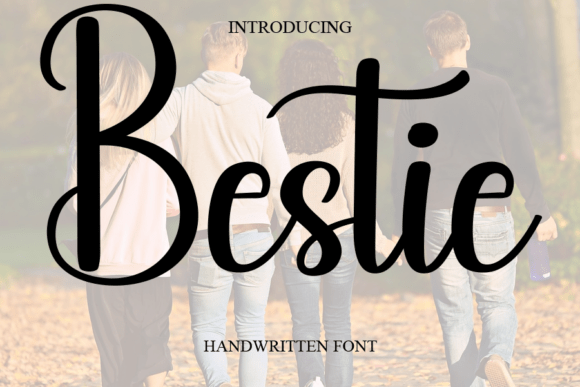
The Sweet and Sassy Bestie Font: A Designer’s New BFF
I’ll never forget the time I was working on a wedding invitation design for a client, and I just couldn’t seem to find the perfect font. I wanted something that was elegant, yet casual; romantic, yet not too over-the-top. I scoured the internet, tried out dozens of fonts, and still, nothing seemed quite right. That was until I stumbled upon the Bestie font. It was love at first sight! 💕
- ✨ Sweet and cursive: Bestie is a beautifully handwritten font that’s perfect for adding a touch of elegance to your designs.
- ✅ Versatile: This font works amazingly well on a variety of design ideas, from branding and logos to wedding things, greeting cards, and more.
- 💕 Romantic and joyful: Bestie adds a lovely, whimsical touch to your projects, making them perfect for designs that need a bit of personality.
Of course, no font is perfect, and Bestie has a few tiny quirks to keep in mind:
- 🤔 Limited character set: While Bestie has a lovely range of characters, it may not have every single symbol or glyph you need. Be sure to check the font’s capabilities before diving in.
- ⚠️ May require manual kerning: As with any script font, you may need to do some manual kerning to get the spacing just right.
The Story Behind Bestie: A Designer Inspiration
Bestie was created by a talented designer who wanted to craft a font that was both elegant and approachable. With a passion for handwriting and lettering, they poured their heart and soul into creating a font that would bring joy and romance to designs. 💌
| Font Name | Bestie Font |
| Author | salma studio |
| Q: Is Bestie suitable for body text? | A: While Bestie is gorgeous, it’s best suited for headlines, titles, and short paragraphs. For longer body text, you may want to choose a more readable font. |